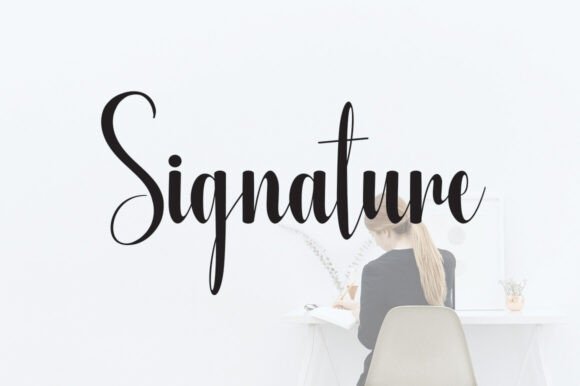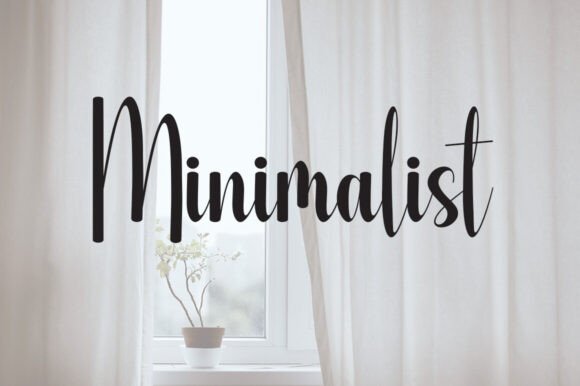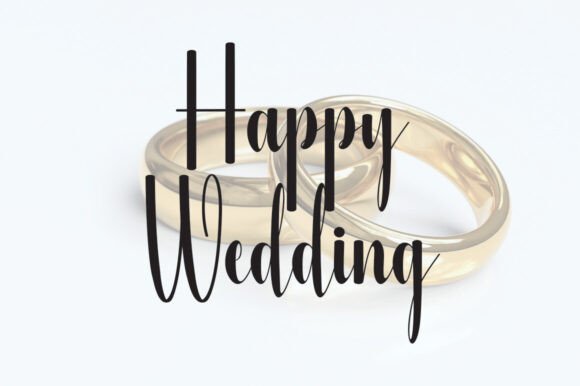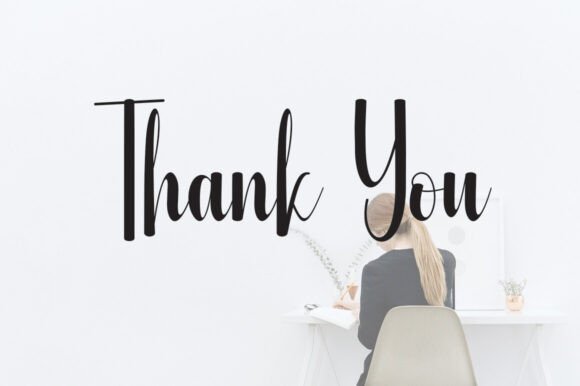
Discover the Delightful Charm of Cherry Font: Elevate Your Designs with Whimsical Elegance
Immerse yourself in the delightful charm of the Cherry font, a handwritten script that’s brimming with sweetness and elegance. Cherry’s gentle curves and delicate cursive strokes infuse a soulful and romantic touch to your design ideas, invigorating them with an effervescent joy. Perfect for a myriad of projects, Cherry transcends the usual, adding a layer of subtle sophistication and whimsical magic to your creative expressions.
A Font that Speaks from the Heart
Infused with a heartfelt sentiment, Cherry font is not just a typographic choice, but a beautiful narration that effortlessly connects, mesmerises, and leaves a lasting impression. Its unique blend of playfulness and refinement makes it an ideal selection for designers and crafters looking to add an extra layer of emotional depth to their work.
Unleash Your Creativity with Cherry Font
Whether you’re working on a branding project, crafting a heartfelt invitation, or designing a captivating poster, Cherry font is the perfect companion to help you convey your message with style and personality. Its versatility knows no bounds, making it suitable for a wide range of applications, from:
- Wedding and event invitations: Add a touch of romance and whimsy to your wedding or event invitations, making them truly unforgettable.
- Branding and packaging: Elevate your brand’s visual identity with Cherry font’s unique charm, setting you apart from the competition.
- Social media graphics: Create engaging and shareable content with Cherry font’s playful yet sophisticated aesthetic.
- Stationery and journals: Add a personal touch to your stationery, journals, and planners with Cherry font’s delicate and cursive strokes.
What Makes Cherry Font So Special?
Cherry font boasts a range of characteristics that make it a standout choice for designers and crafters:
- Handwritten charm: Cherry font’s handwritten nature gives it a unique, personal feel that resonates with audiences.
- Elegant cursive strokes: The font’s delicate cursive strokes add a touch of sophistication and refinement to any design.
- Whimsical magic: Cherry font’s playful undertones bring a sense of joy and wonder to your designs.
- Emotional connection: The font’s heartfelt sentiment helps create an emotional connection with your audience.
Tips for Using Cherry Font Effectively
To get the most out of Cherry font, consider the following tips:
- Pair with contrasting fonts: Combine Cherry font with a contrasting font to create visual interest and hierarchy.
- Experiment with colors: Play with different colors to find the perfect match for your design and brand.
- Use it sparingly: Balance Cherry font with other design elements to avoid overwhelming the senses.
- Make it your own: Don’t be afraid to add your personal touch to Cherry font, making it truly unique to your brand or project.
Cherry font is more than just a typographic choice – it’s a gateway to creating designs that speak from the heart. With its delicate cursive strokes, whimsical charm, and heartfelt sentiment, Cherry font is the perfect companion for designers and crafters looking to elevate their work. So why not immerse yourself in the delightful charm of Cherry font and discover a world of creative possibilities?
Whether you’re a seasoned designer or a crafty enthusiast, Cherry font is sure to captivate your audience and leave a lasting impression. So go ahead, get creative, and let Cherry font be the beautiful narration that brings your designs to life!